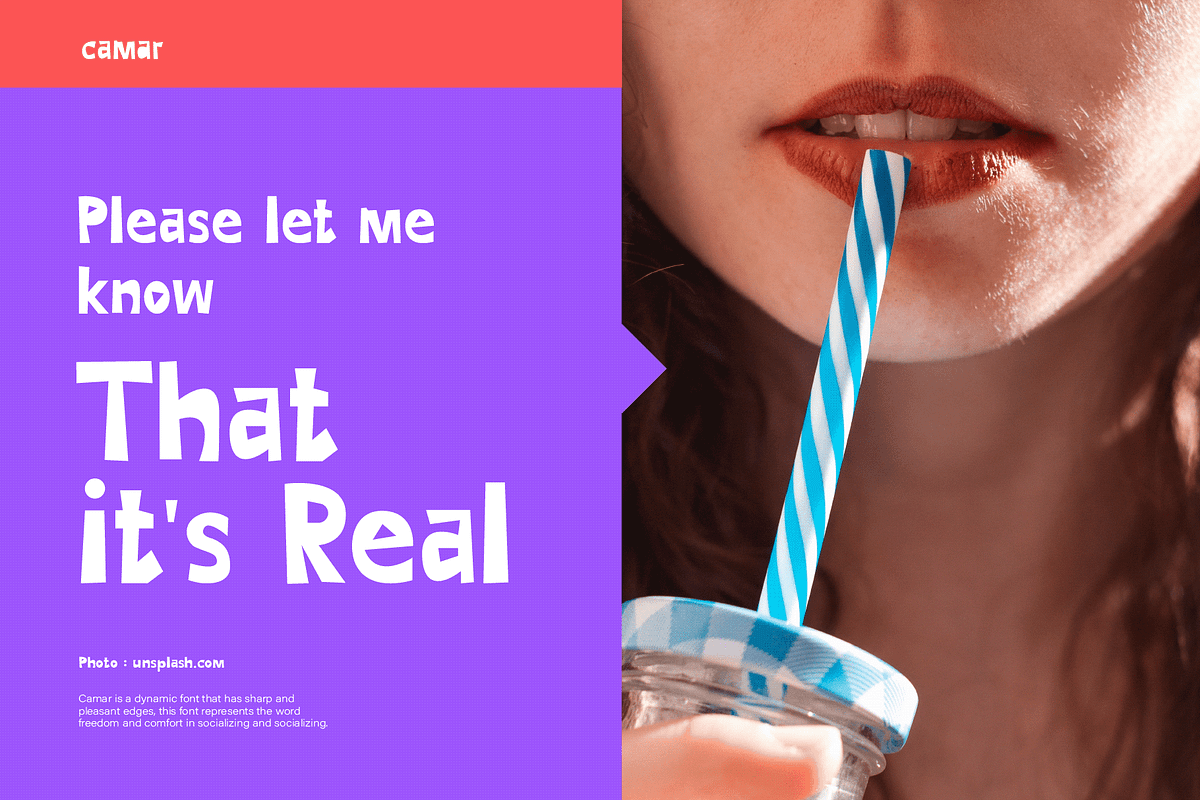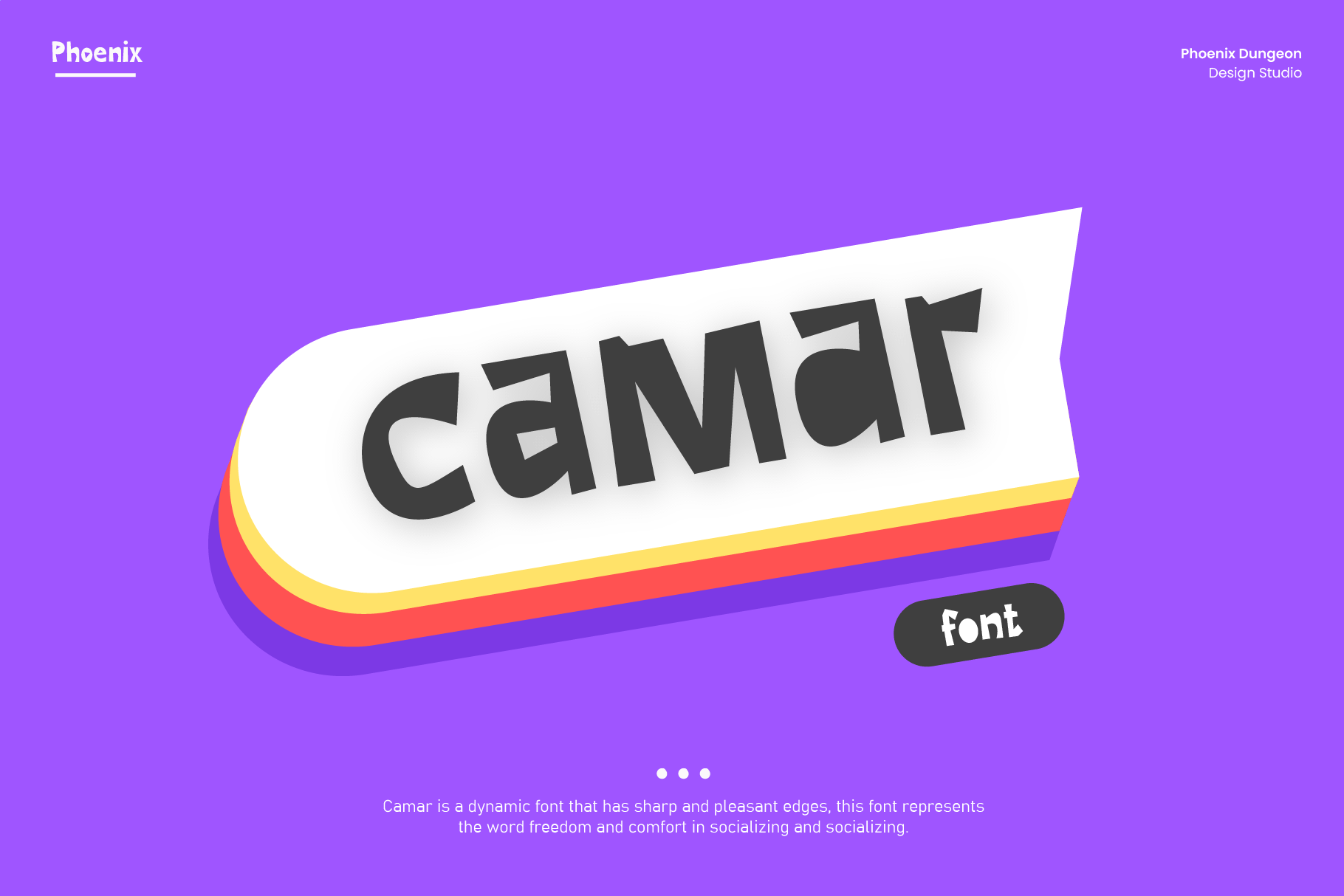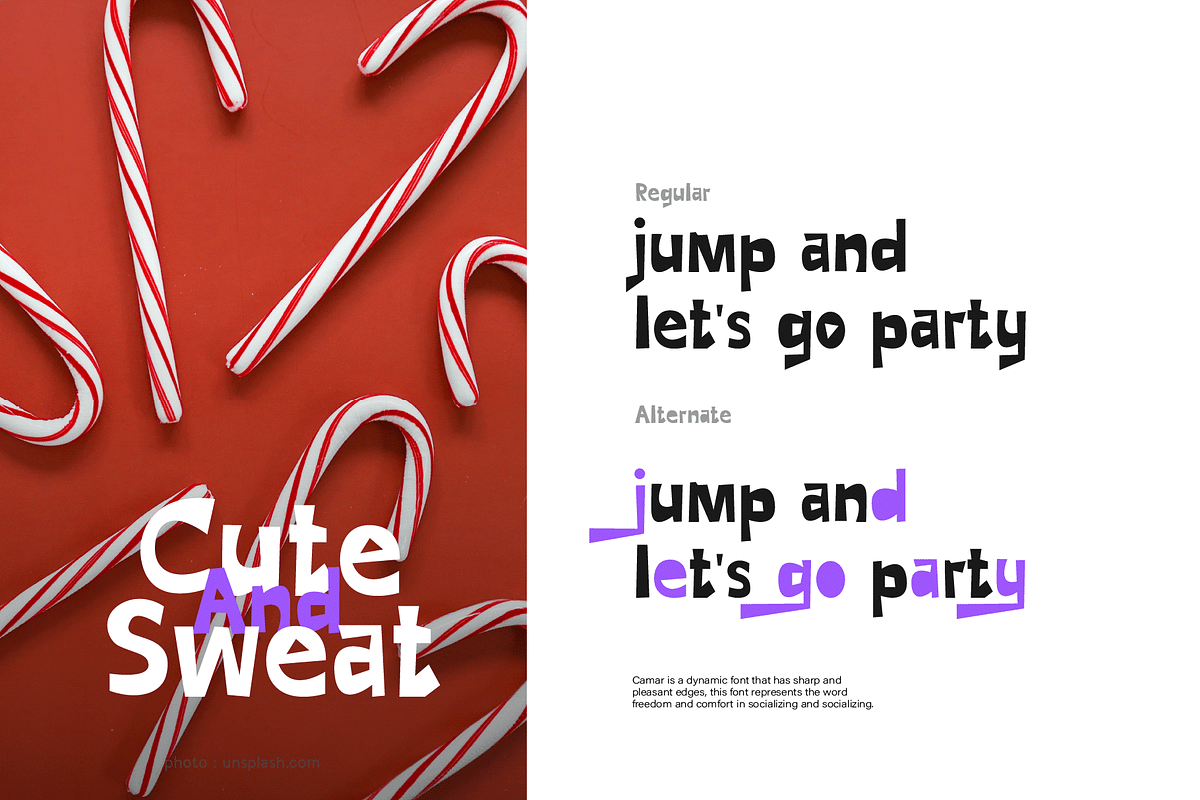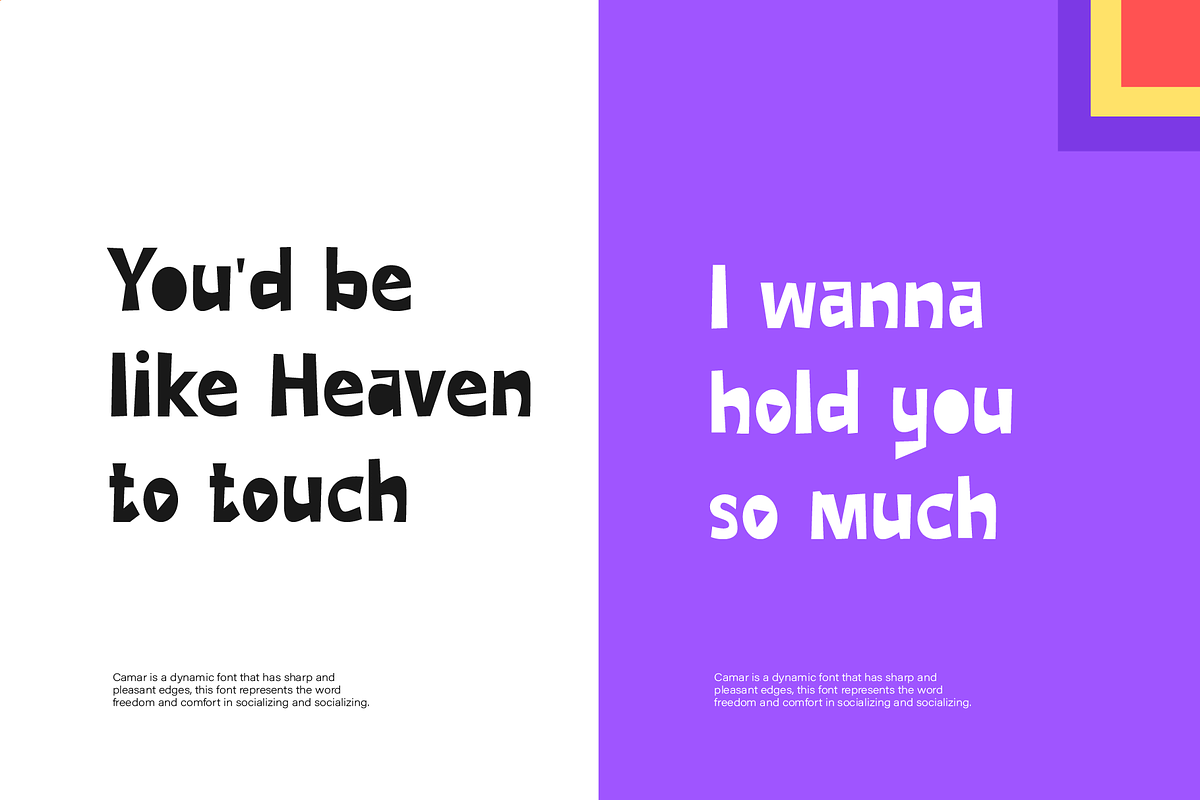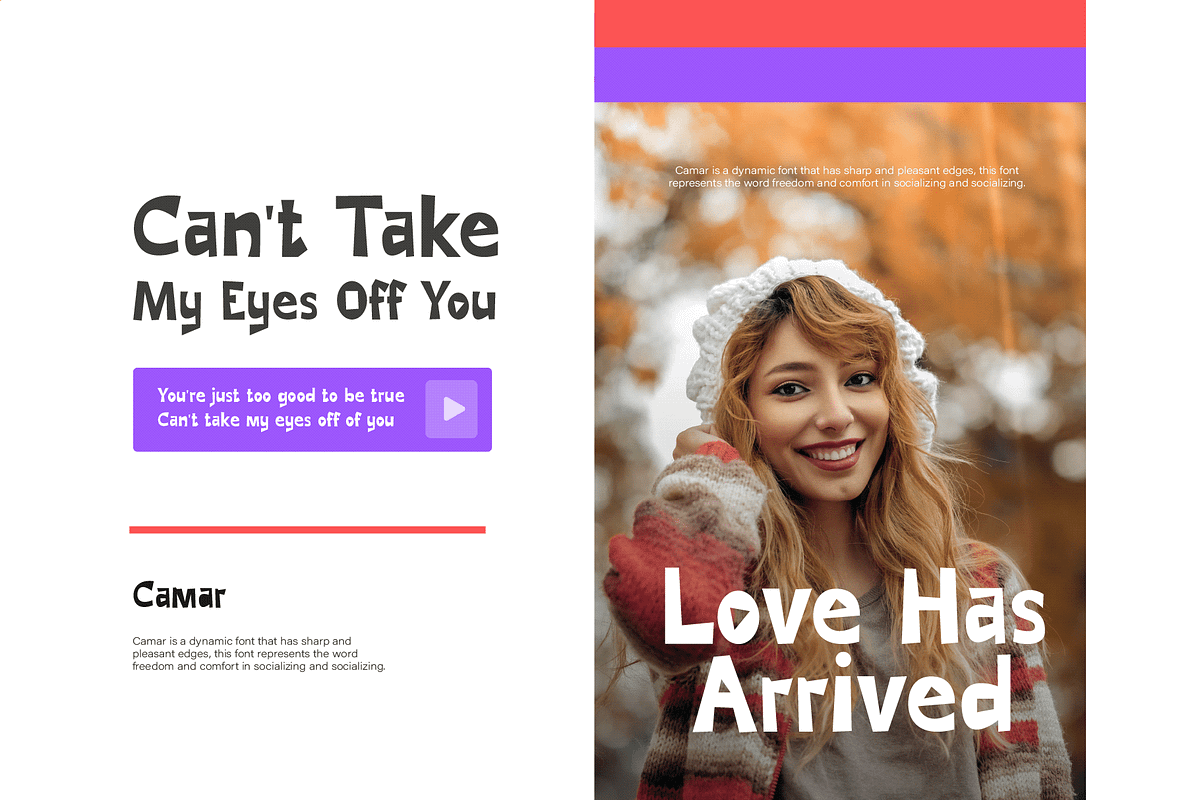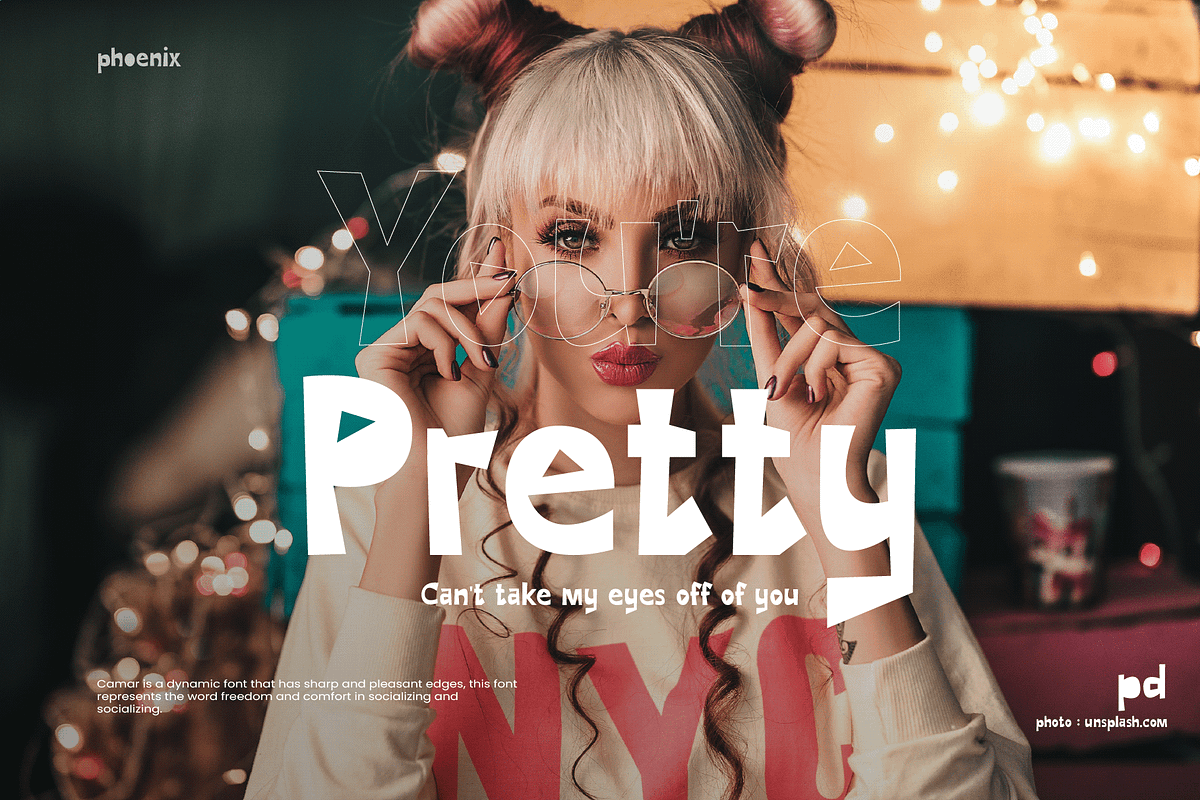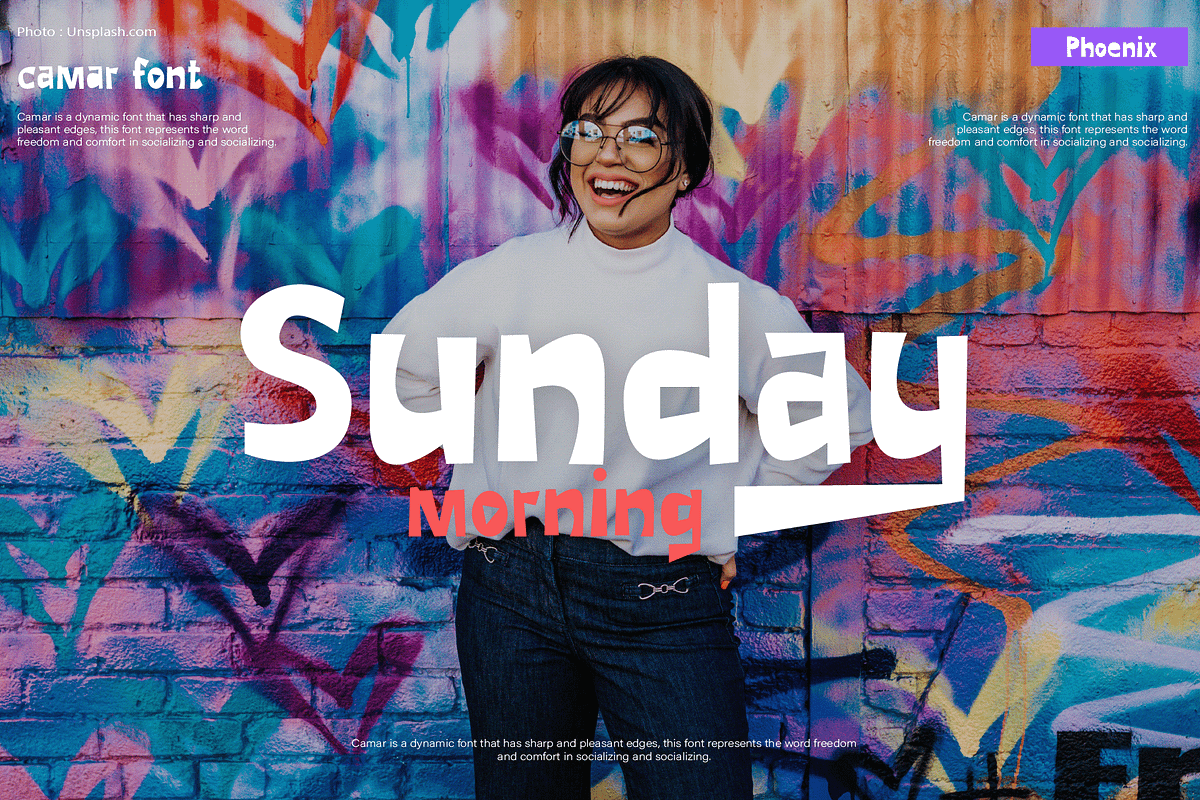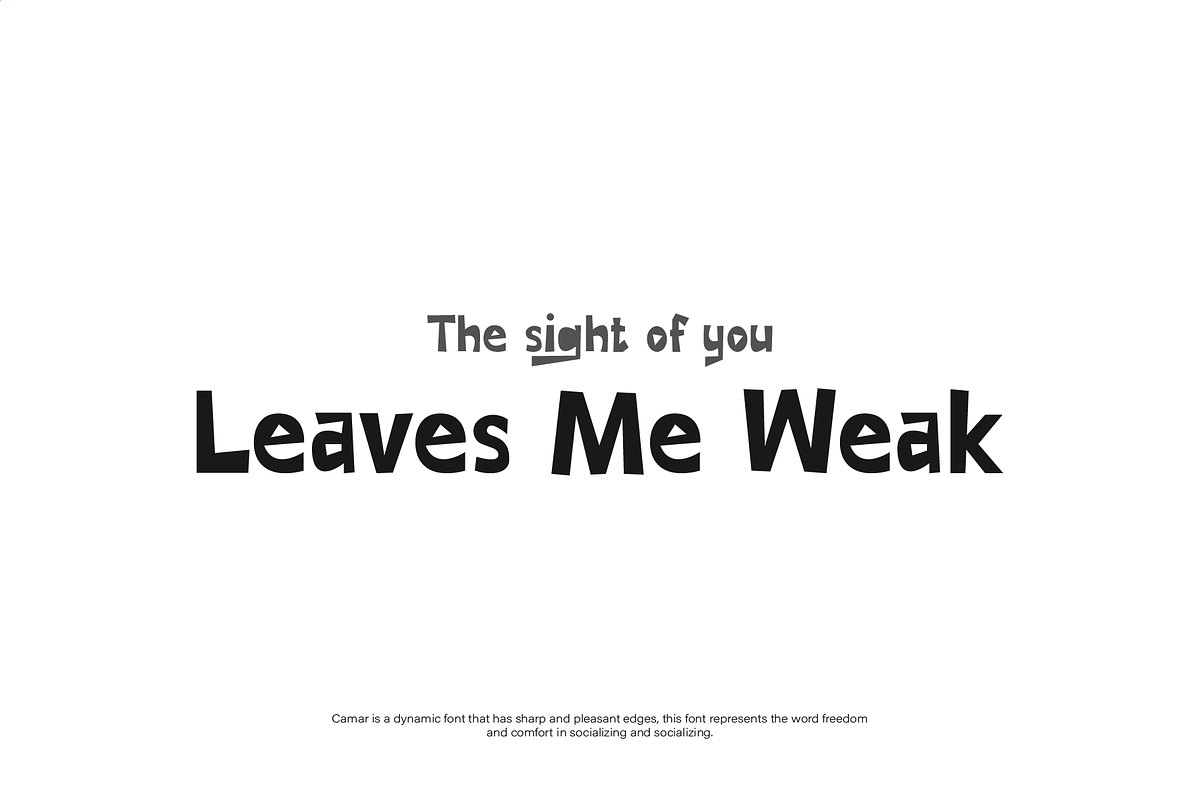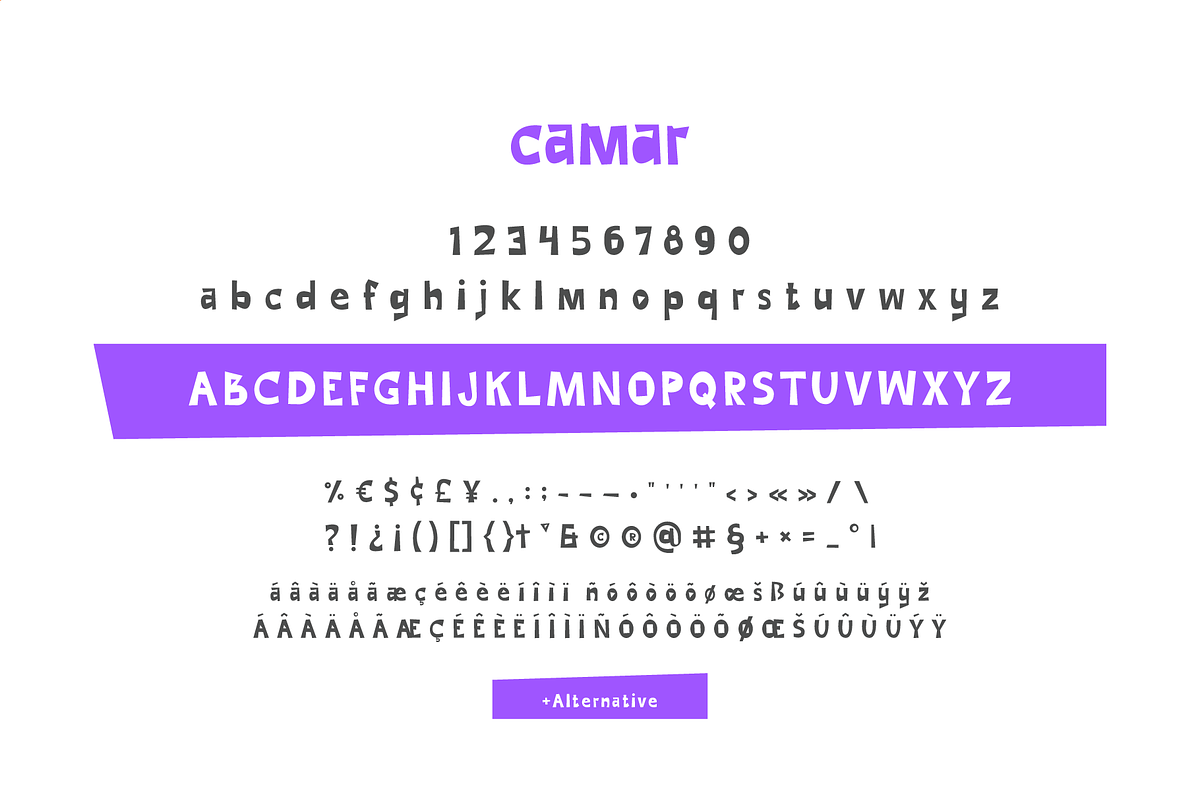
Camar Font
Camar is a dynamic font that has sharp and pleasant edges, this font represents the word freedom and comfort in socializing and socializing.